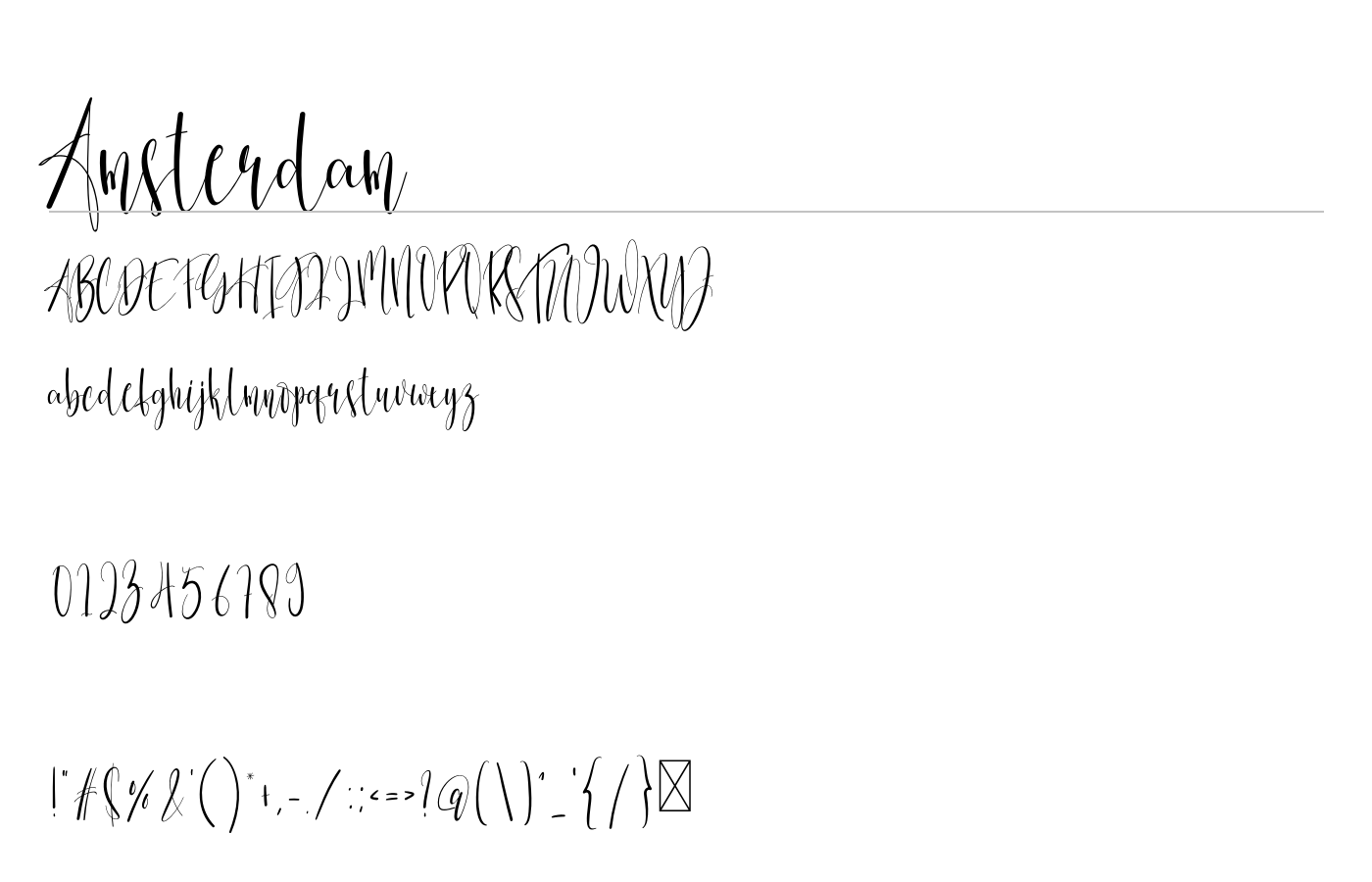
Amsterdam Font is a delicate, modern script typeface characterized by its tall, slender letterforms and elegant, flowing strokes. With its handwritten style and airy spacing, it conveys a sense of sophistication and creativity, making it ideal for invitations, branding, and artistic projects where a personal, stylish touch is desired. This font’s fine lines and whimsical character bring a graceful, contemporary charm that suits fashionable and feminine design contexts.
Amsterdam Font
About Amsterdam Font